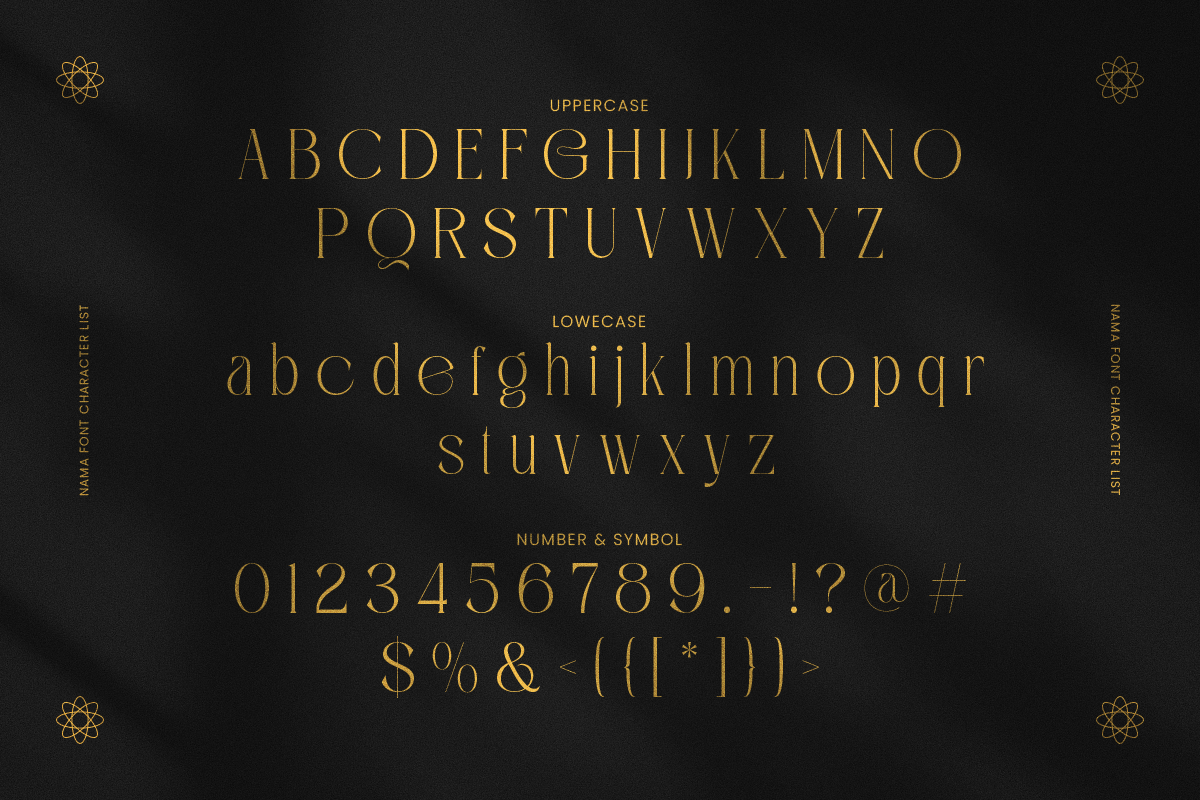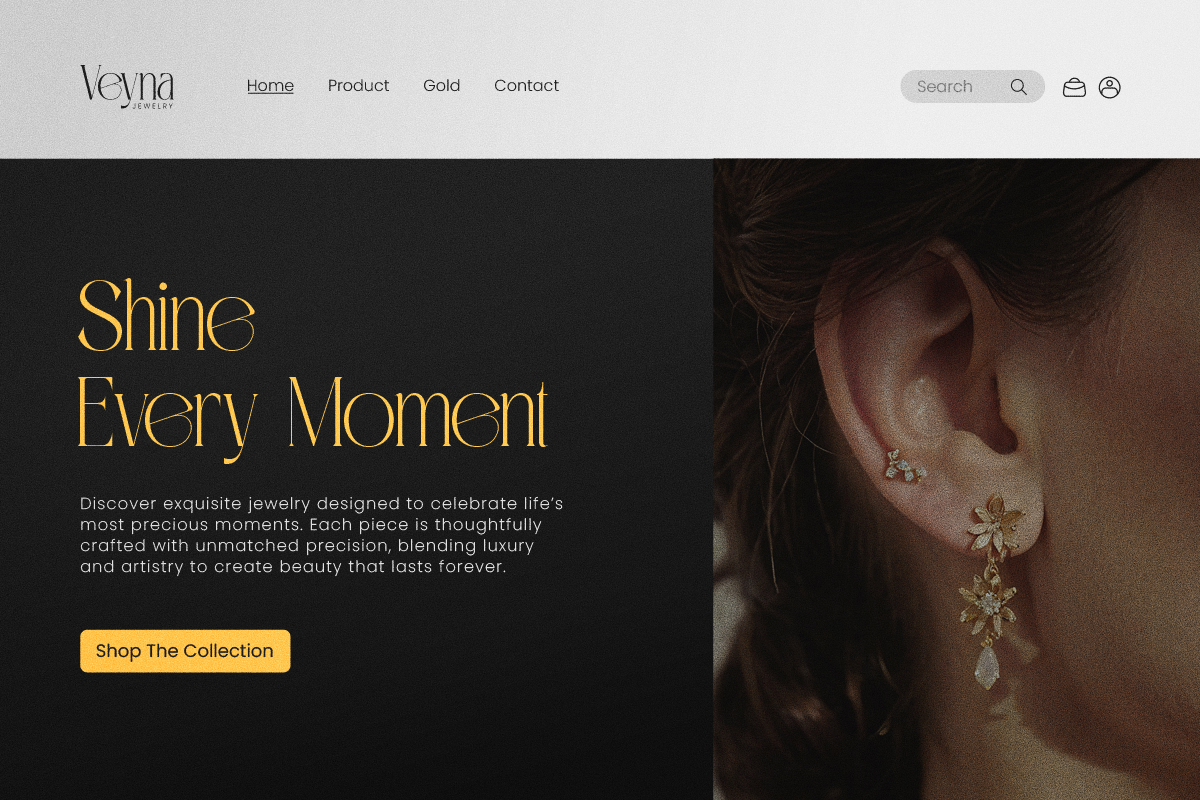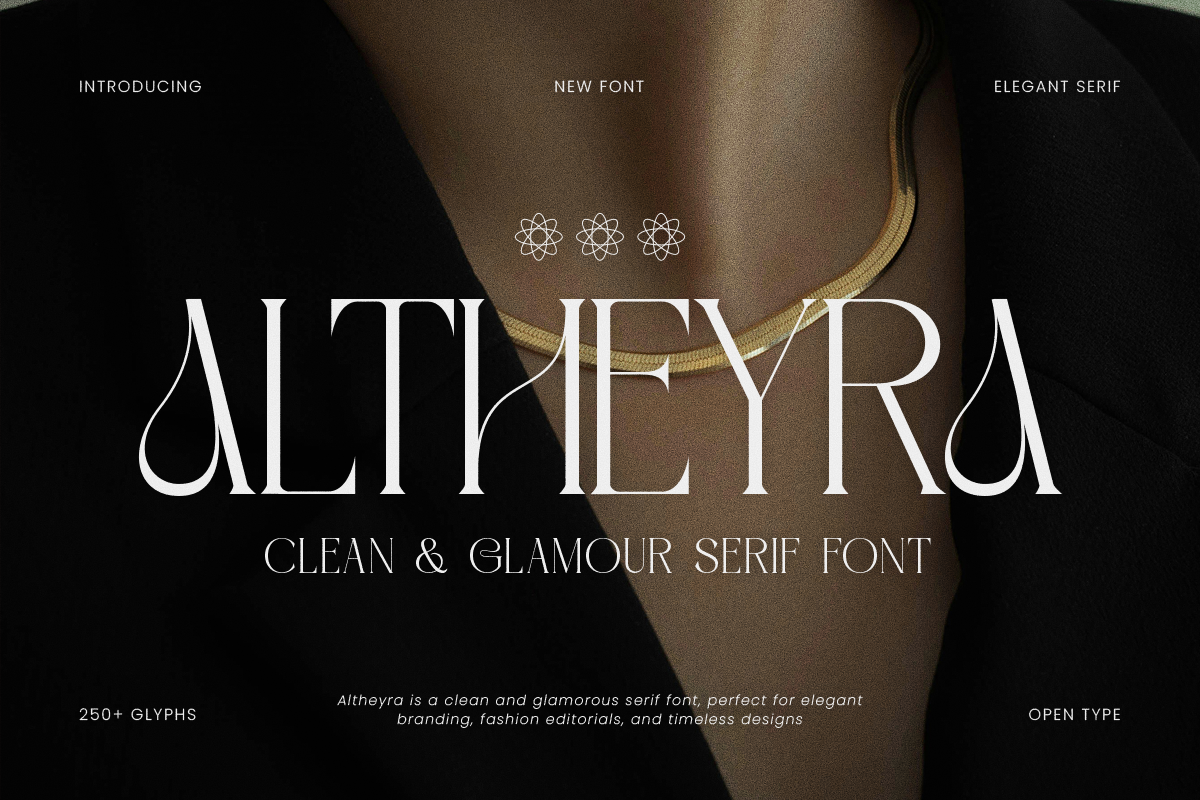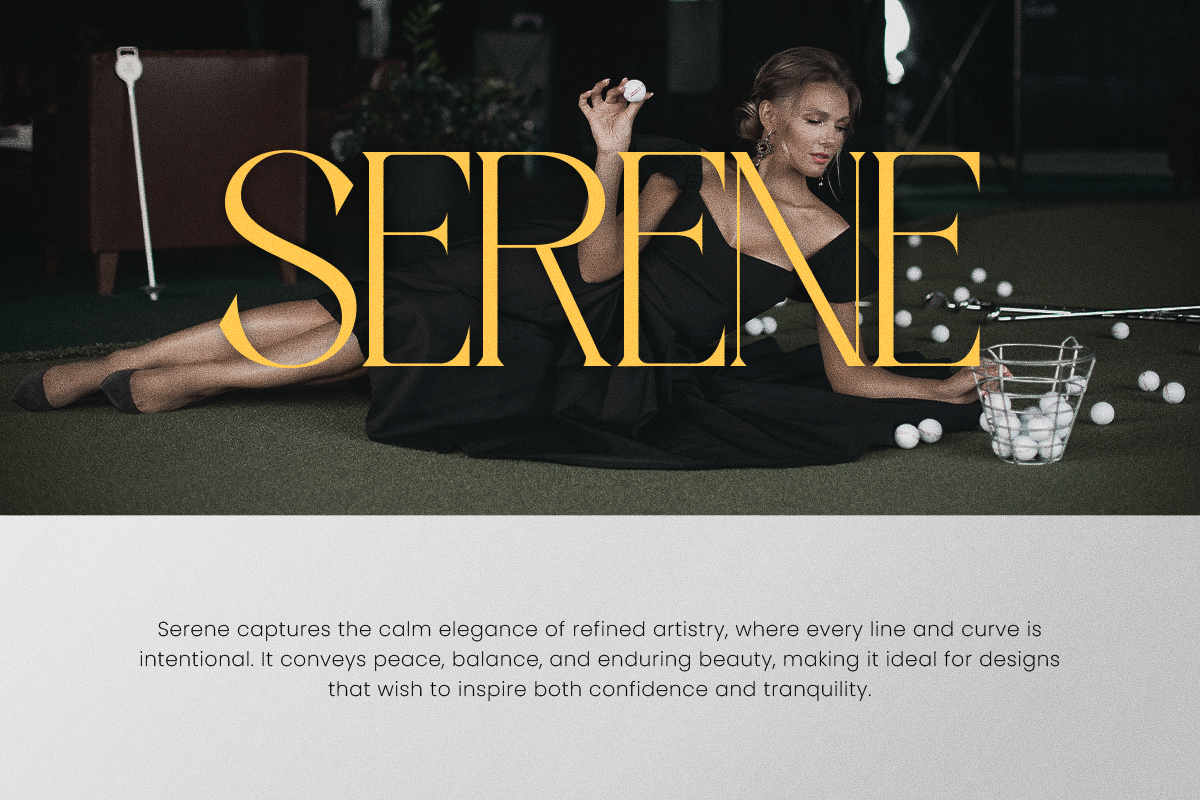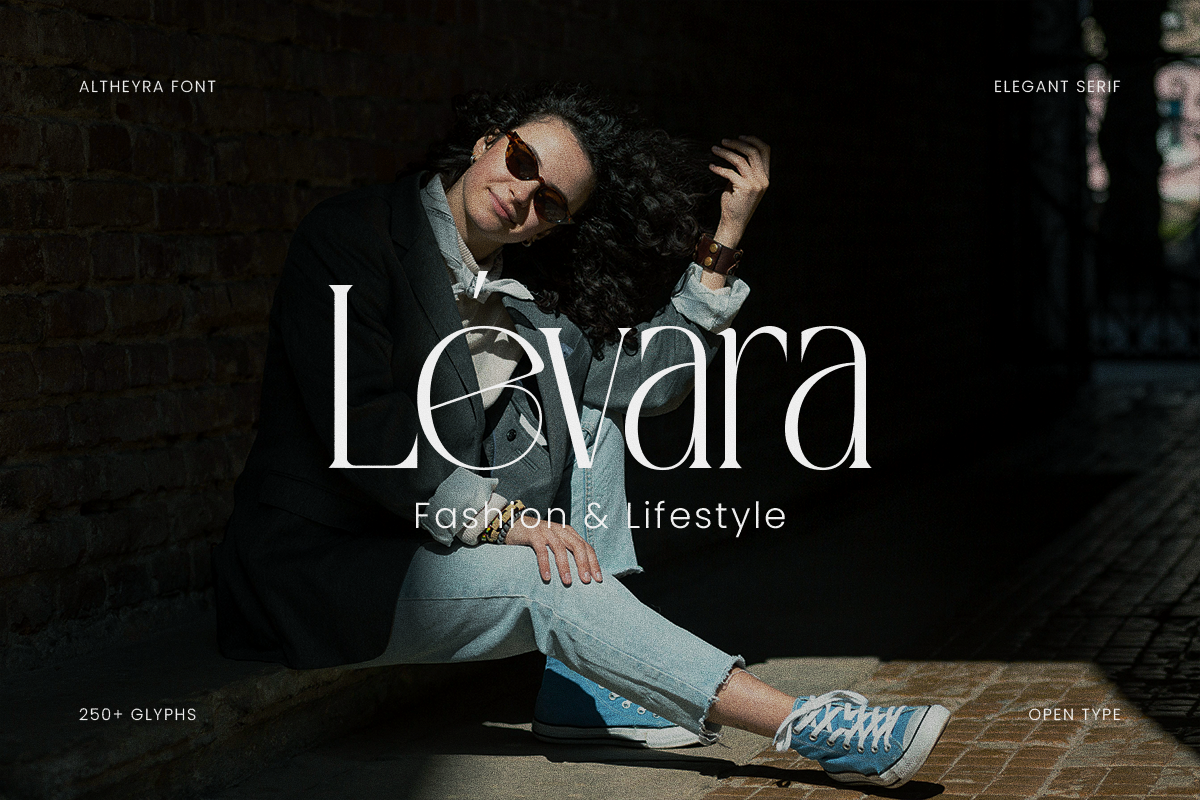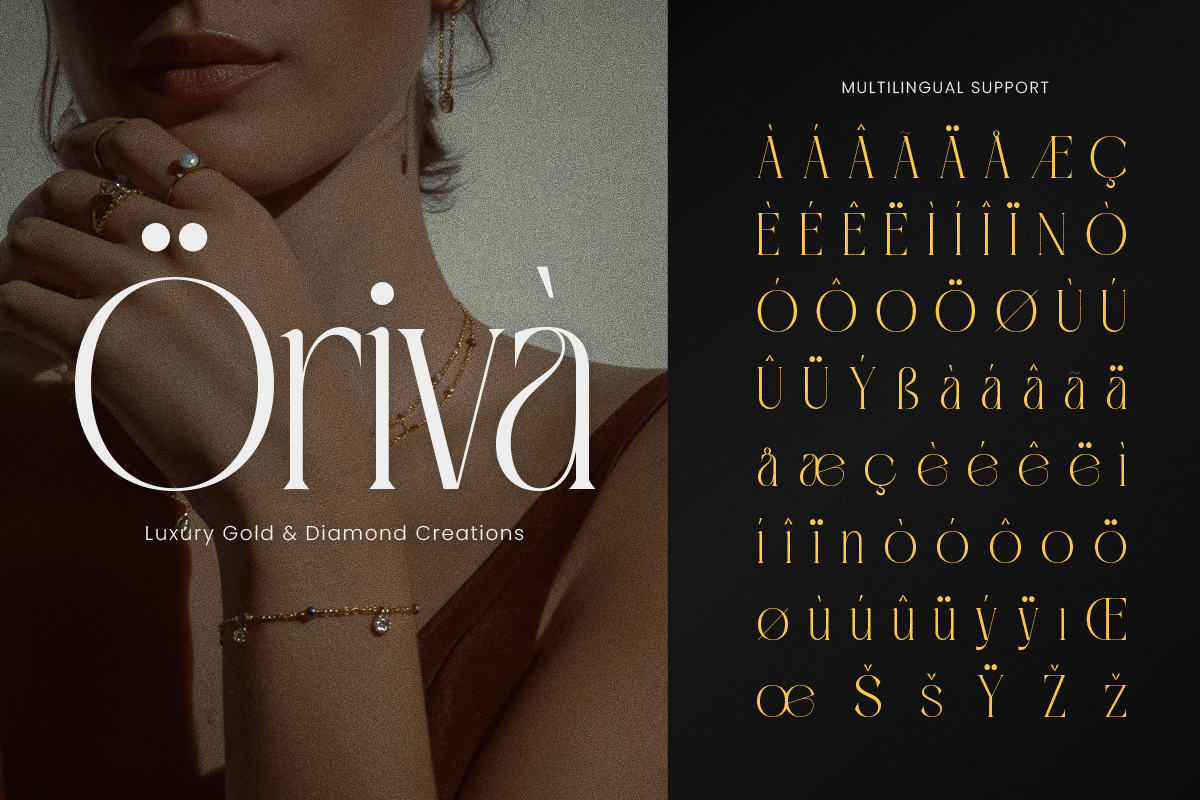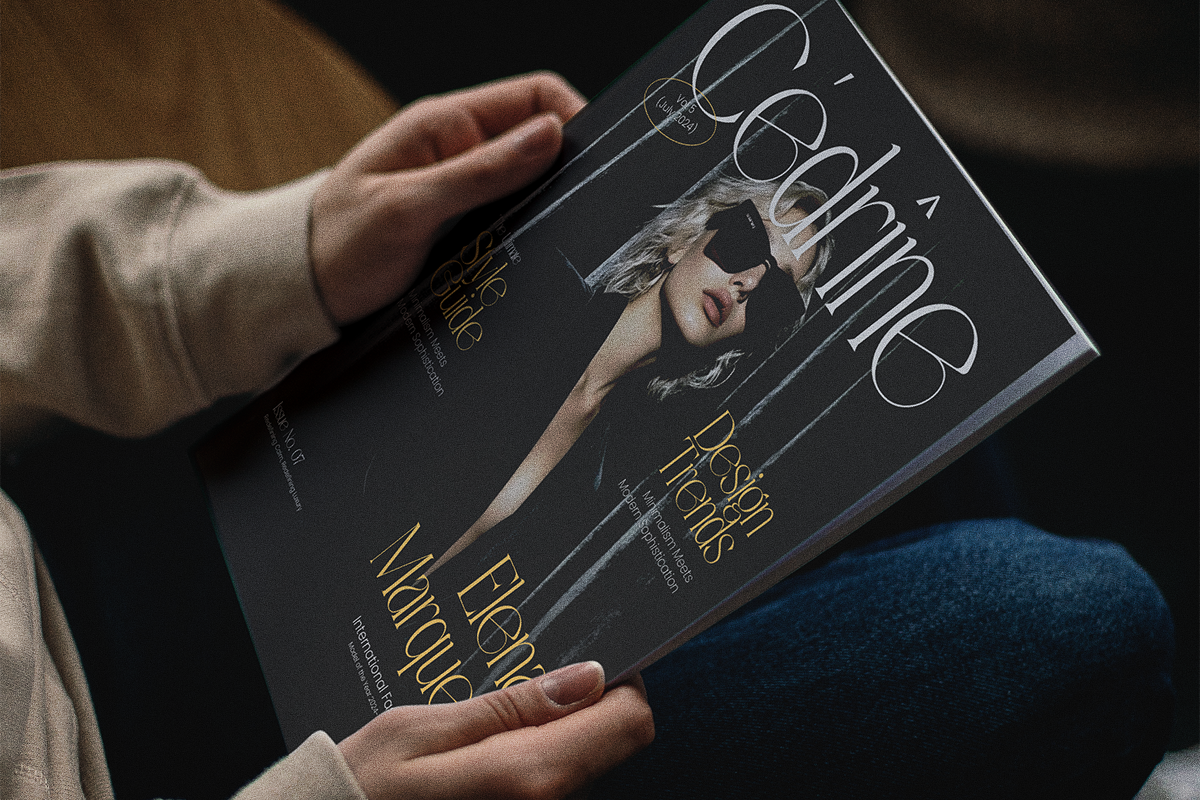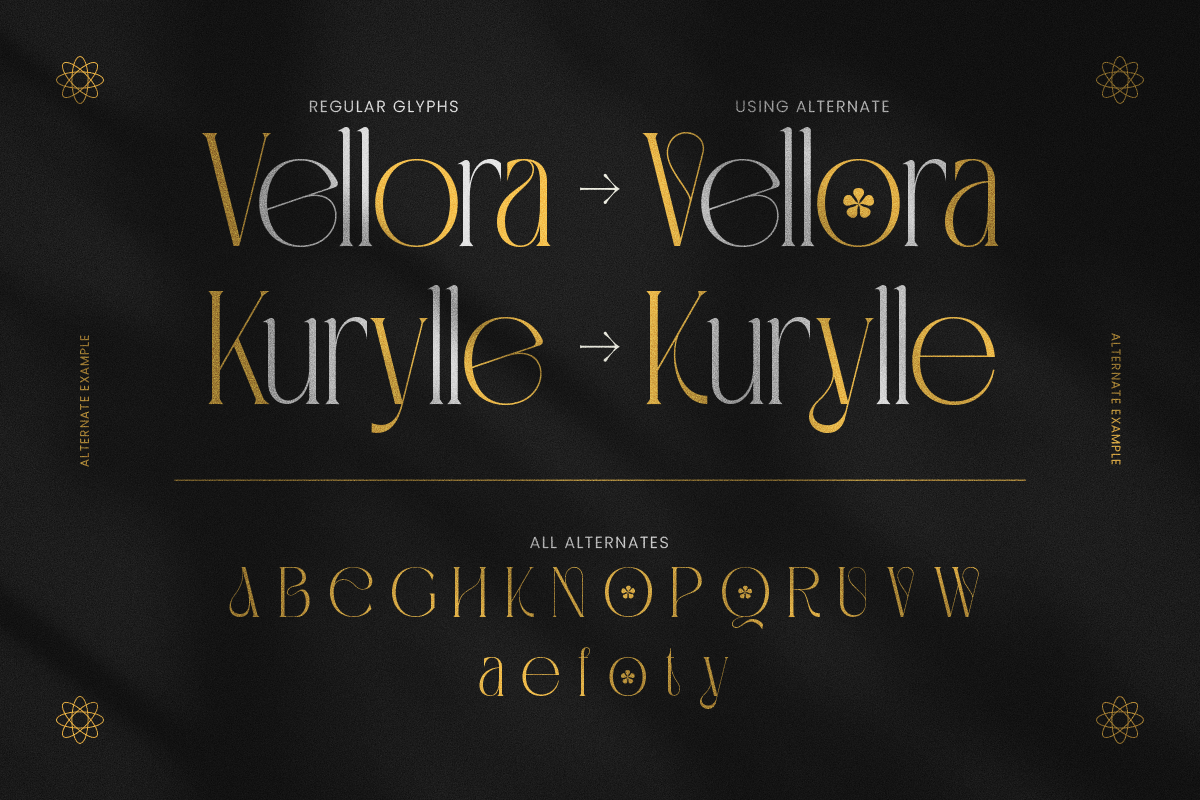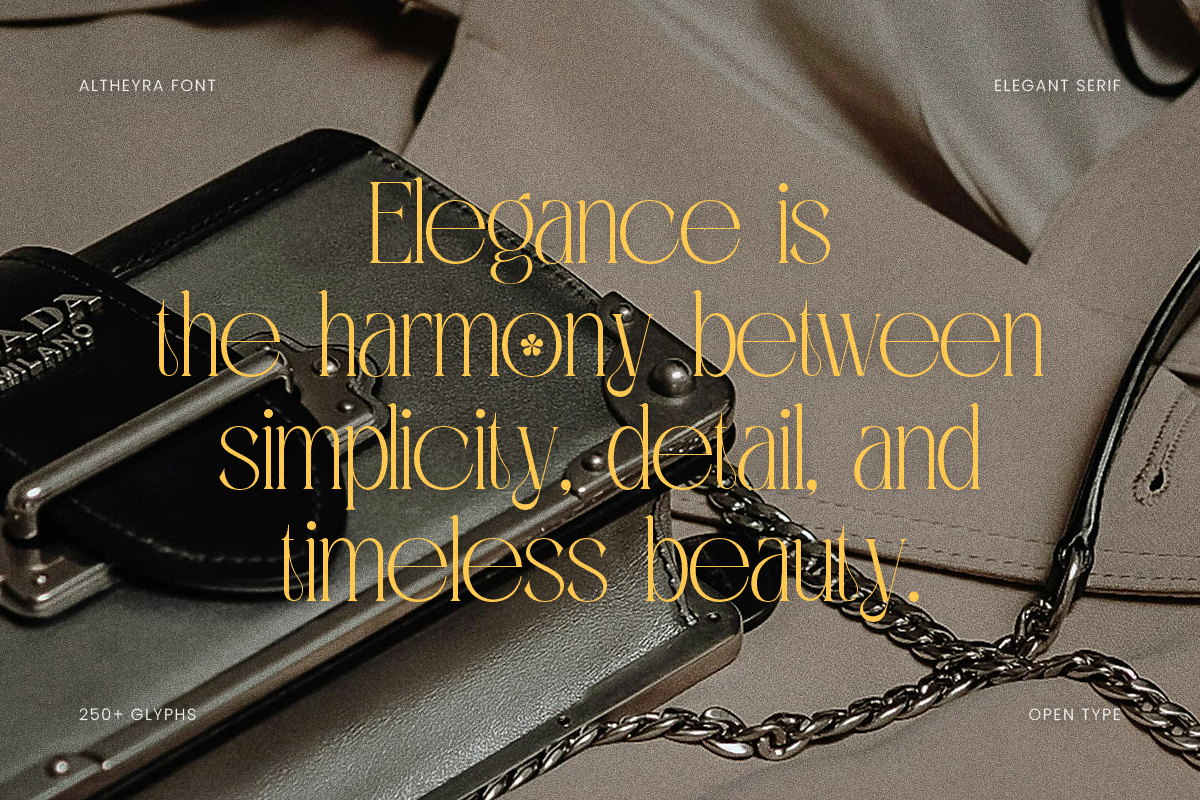
Altheyra - Elegant Serif Font
Altheyra is a clean and glamorous serif font that blends modern sophistication with timeless elegance. Featuring refined curves, graceful contrasts, and luxurious letterforms, this font is perfect for high-end branding, editorial layouts, fashion magazines, and elegant packaging. Altheyra radiates confidence and charm, making every word look polished and refined.
- Ligatures & alternates